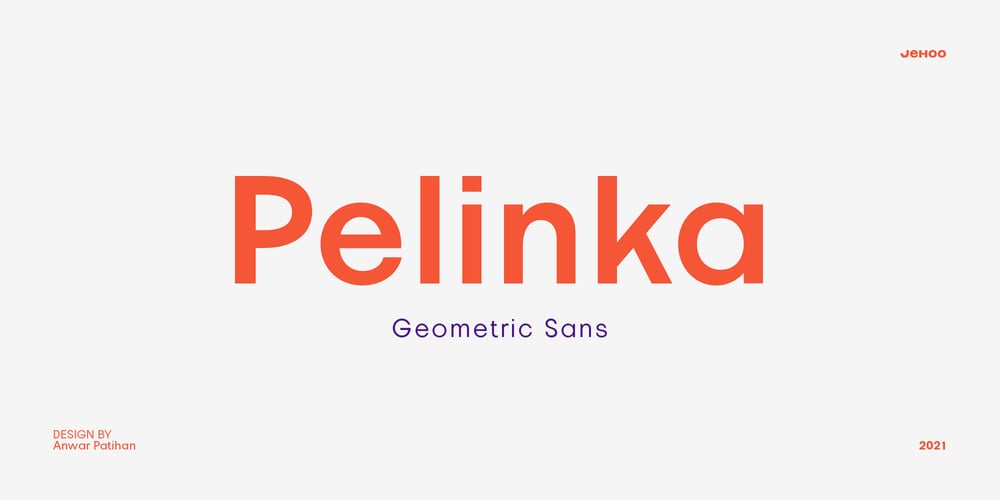
Pelinka
Pelinka font
Pelinka Font Family was designed by Anwar Patihan and published by Jehoo Creative. Pelinka contains 27 styles and family package options. Upholding aspects of geometric shapes Created Pelinka.Pelinka is a Sans serif Family that has a solid foundation of geometric shapes designed to be bold and flexible. This typeface has all the widths needed to meet various design needs, Condensed, Normal and Expanded each width has 9 weights. Pelinka also includes support for Cyrillic and Greek Alphabets.Opentype feature: aalt, frac, liga, locl, numr, onum,ordn, salt, sinf, ss01, ss02, subs, sups, kern, mark.Language support for the Americas, most of Europe,Cyrillic and Greek.